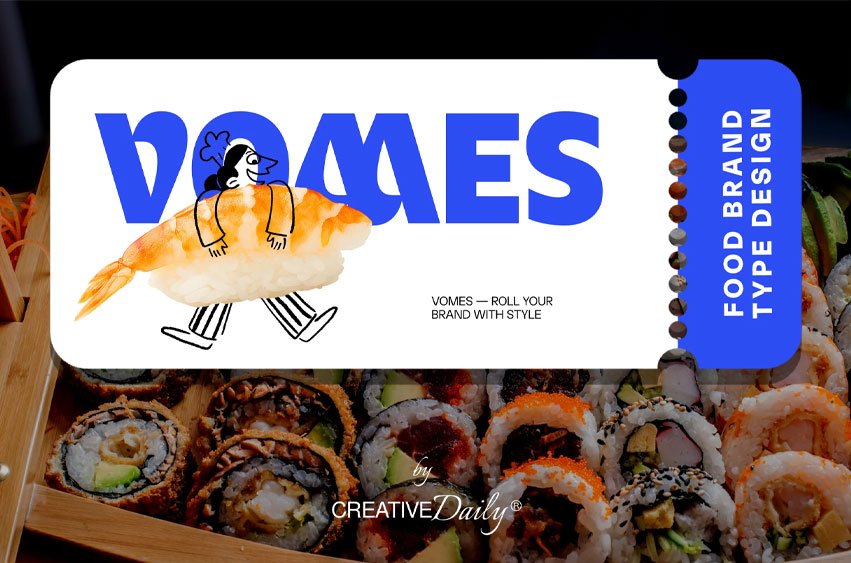
Vomes Font is a bold food type design made to bring fresh energy into sushi branding, restaurant logos, cafe menus, and modern culinary visuals. With its chunky shapes, playful curves, and confident display style, this font is perfect for food logo projects, coffee packaging, bakery labels, burger menus, candy products, pizza promotions, ice chocolate graphics, and creative brand identities.
Inspired by cooking culture, kitchen creativity, and fun restaurant presentation, Vomes gives every design a strong and memorable personality. It works beautifully for menu design, food posters, takeout packaging, social media content, cafe signage, and lifestyle branding, helping any food brand look more stylish, tasty, and instantly recognizable.